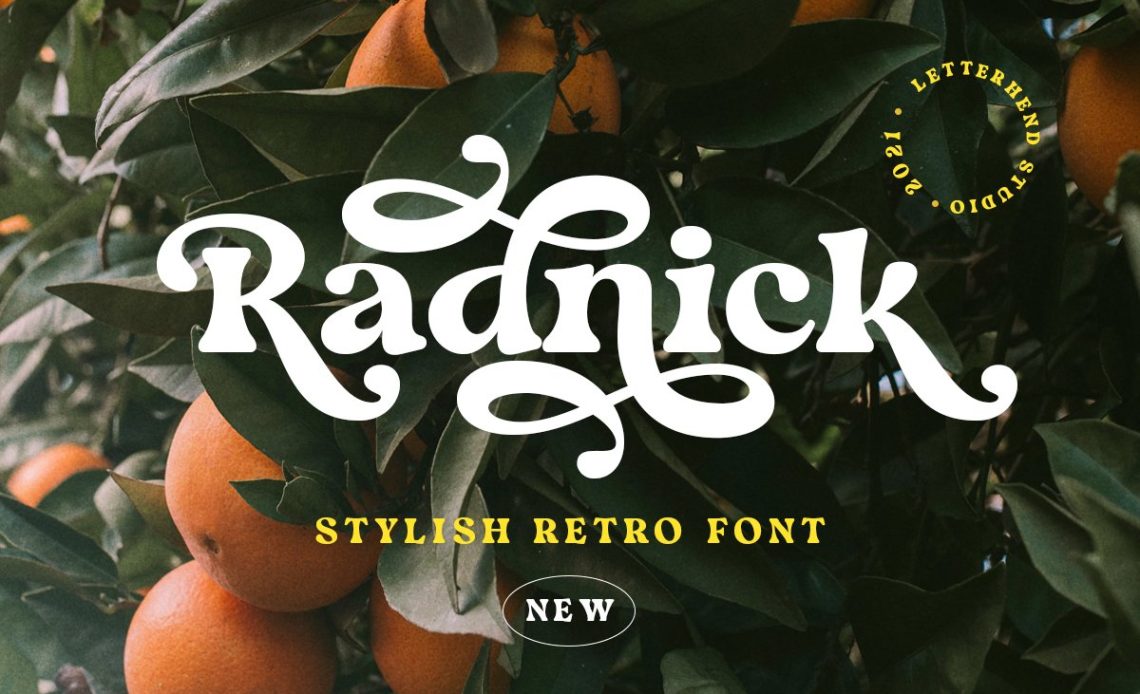
Looking for a stylish and retro font that can help elevate your designs? Look no further than Radnick, the perfect font for all your Instagram name needs. Created by Hendry Juanda, this serif font boasts stylistic alternates and ligatures that make it stand out from the crowd, giving your designs that coveted 70s vibe.
But Radnick isn't just a pretty face. With features like uppercase and lowercase letters, numbers and punctuation, and multilingual support, this font is versatile and perfect for any project. The alternates, swashes, and ligatures give you even more options to create unique and eye-catching designs. And with PUA encoding, you can easily access all the glyph variations you need.
Whether you're creating logos, invitations, labels, magazines, books, greeting or wedding cards, packaging, fashion, makeup, stationery, novels, labels, or any type of advertising, Radnick is the perfect font for the job. So what are you waiting for? Download Radnick today and start designing your way to success!